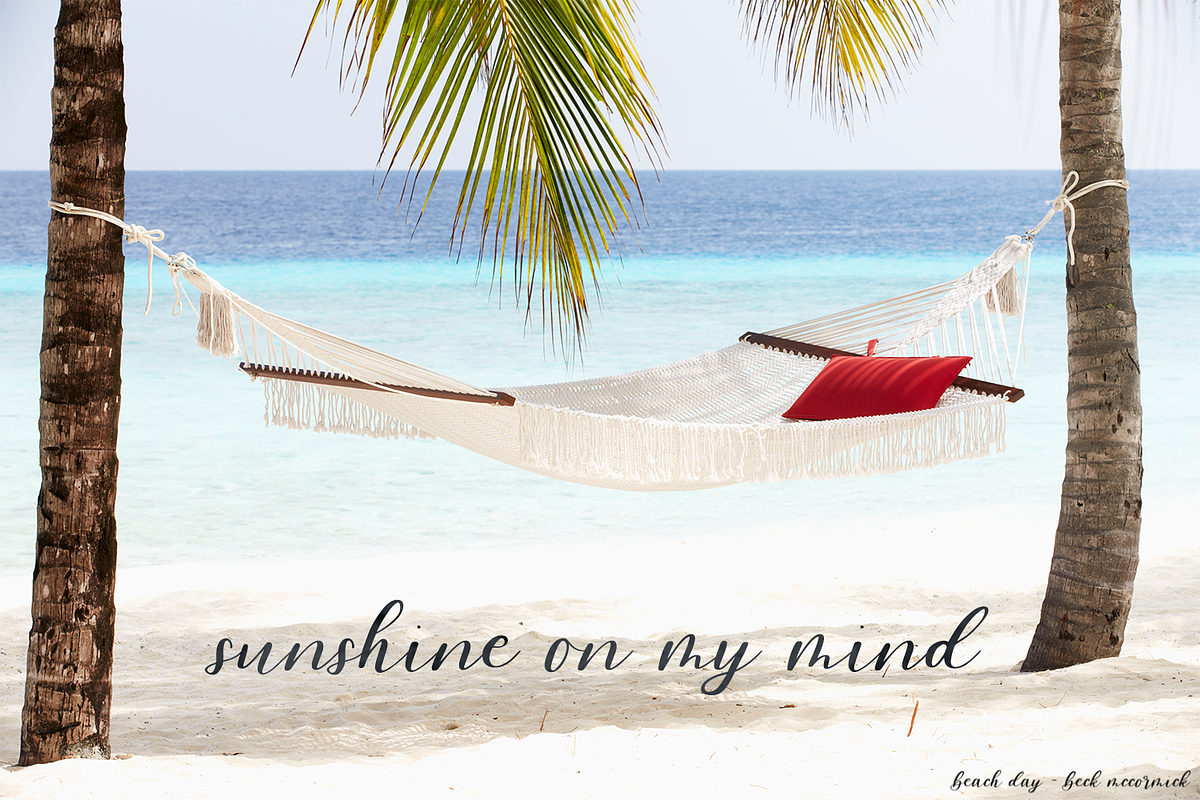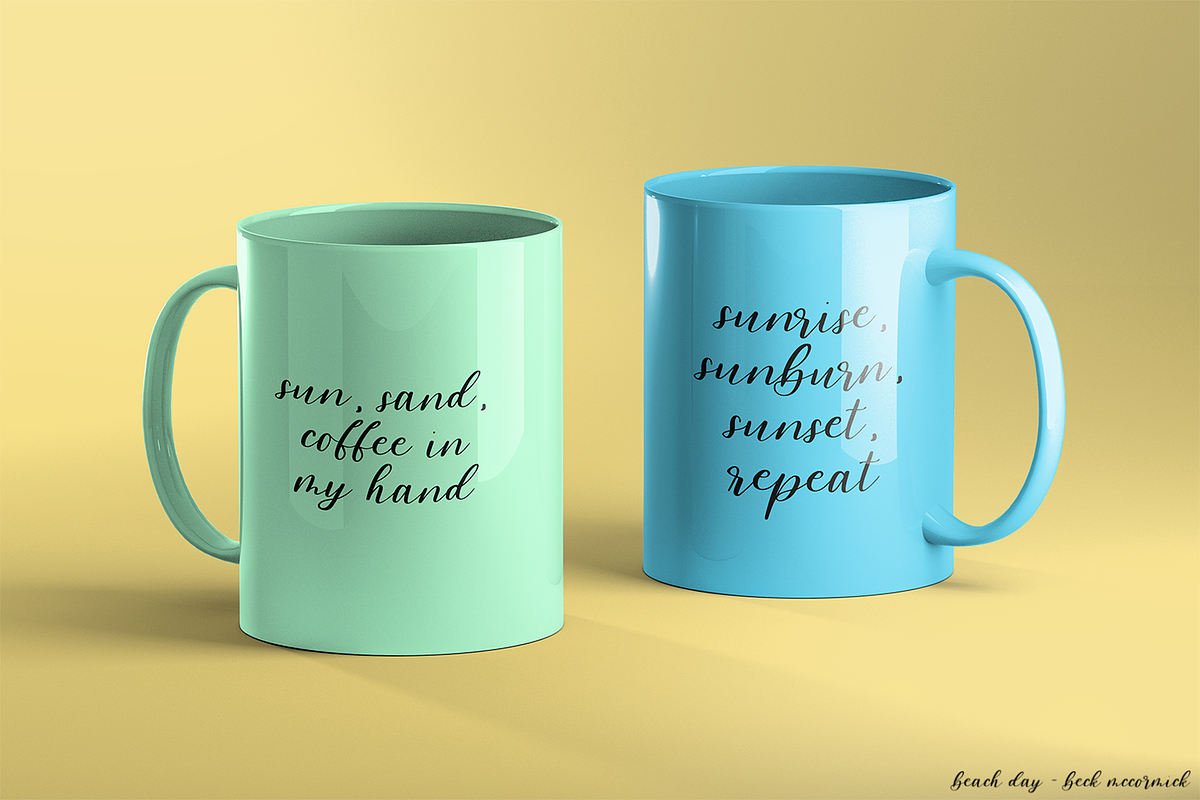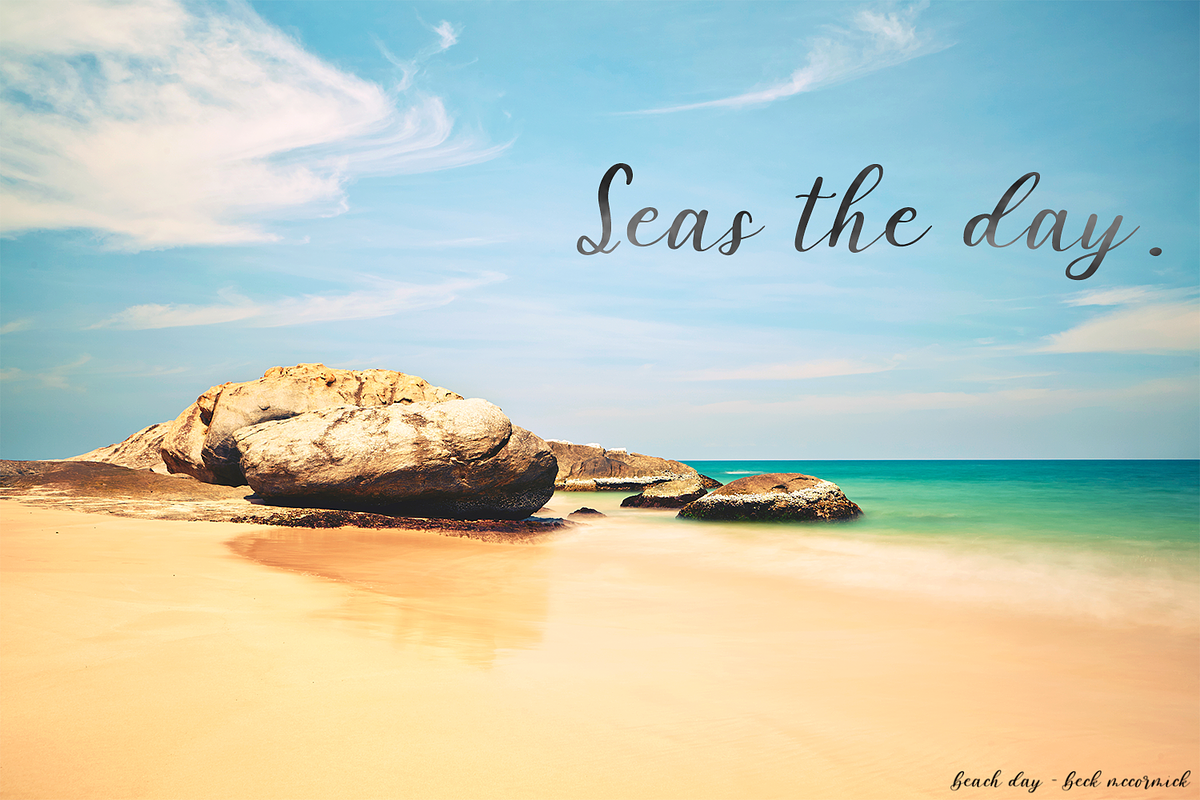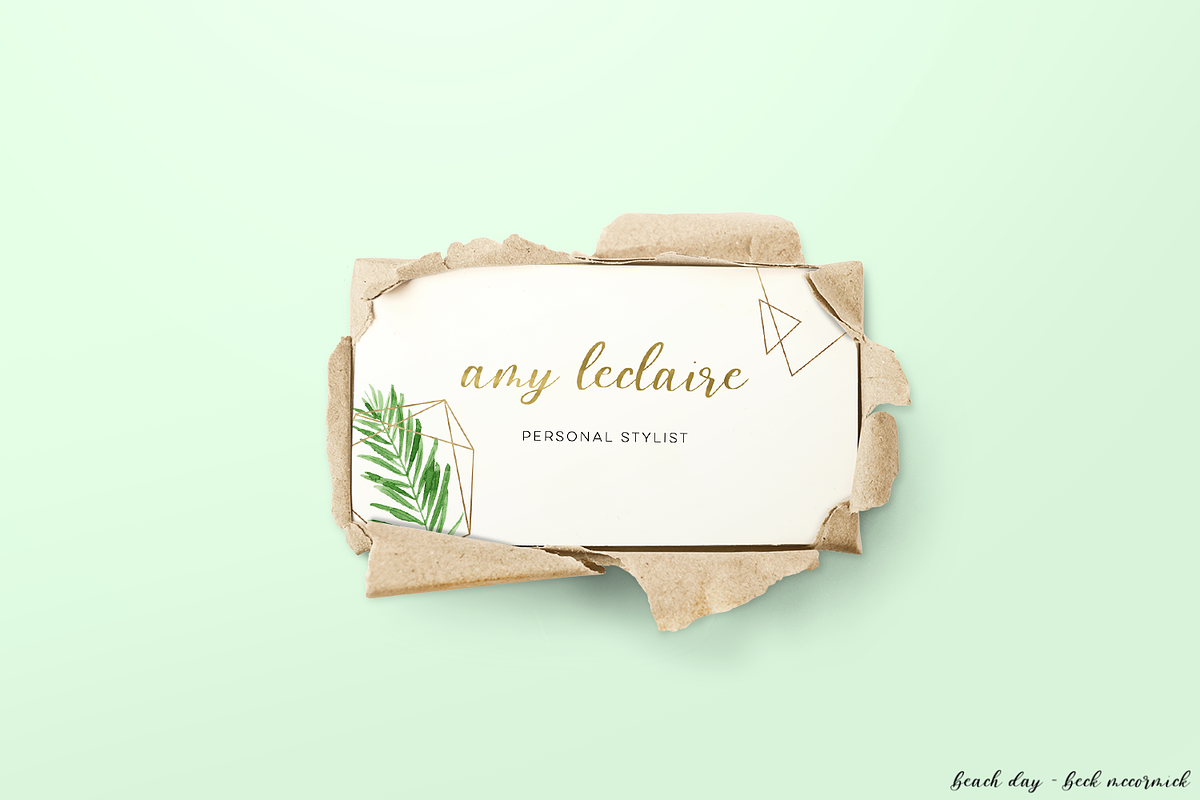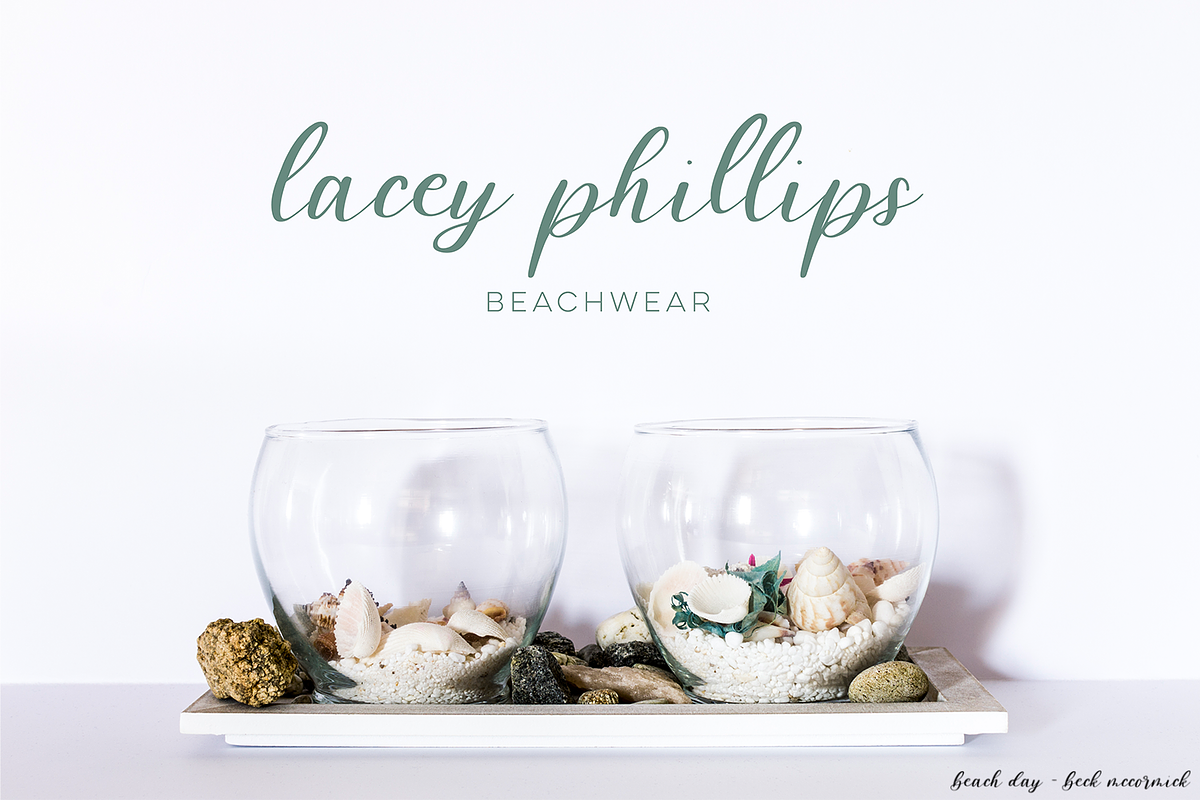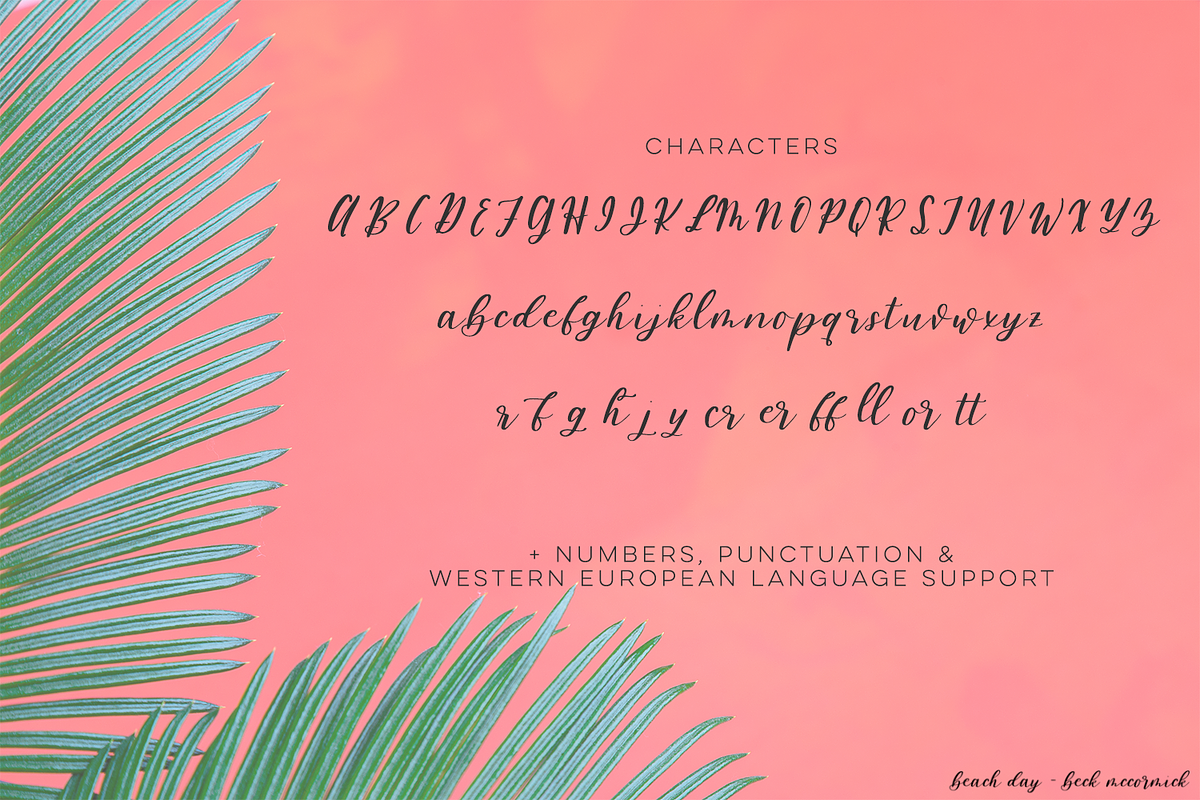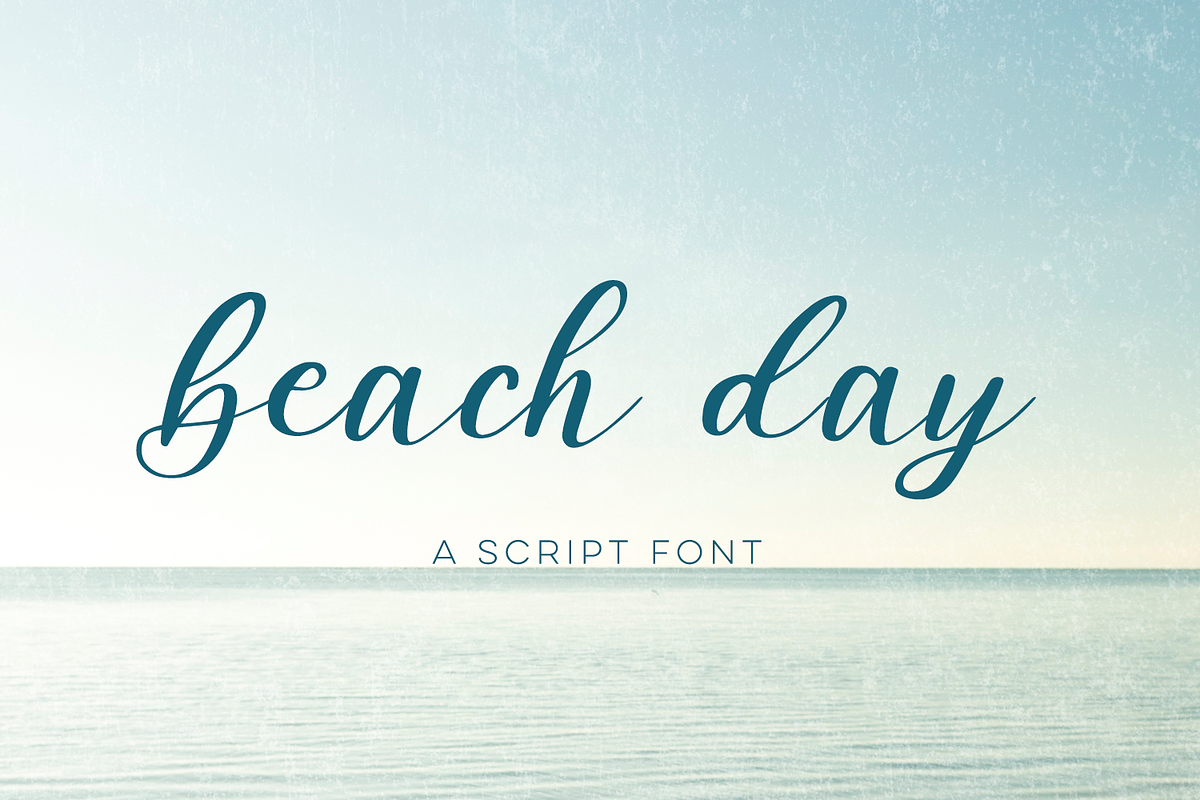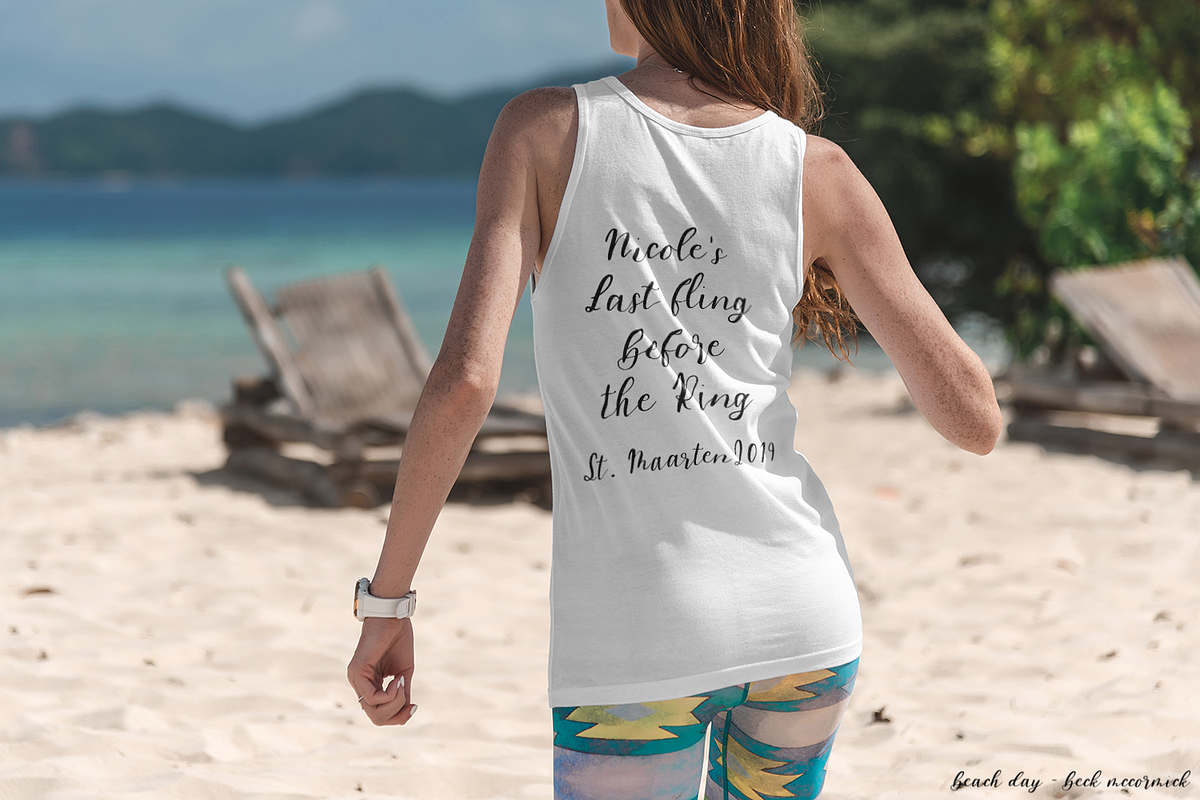
Beach Day Script
Meet Beach Day Script - Beach Day is a lovely cursive font, casual and effortless, just like a real beach kinda day.
Beach Day is best for:
- clean print design, like magazines + flyers
- header elements that need a feminine touch
- logos + branding
- quote graphics for social media
Beach Day includes:
- full upper + lowercase characters
- numbers + punctuation
- Western European Language Support
- special flourished characters - f, g, h, j, y - and common ligatures - cr, er, ff, ll, or, tt